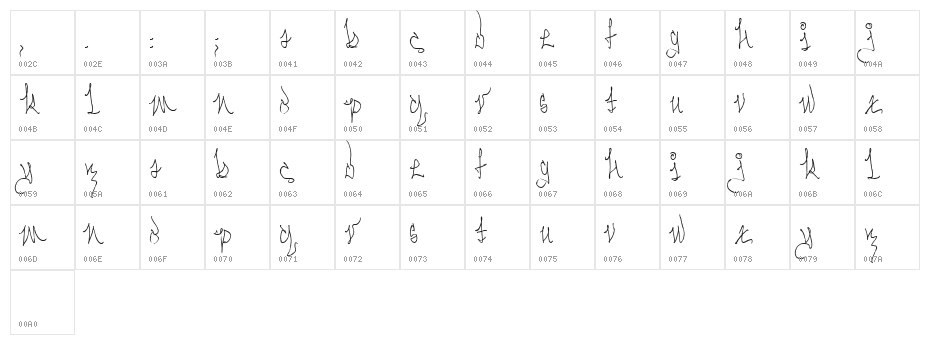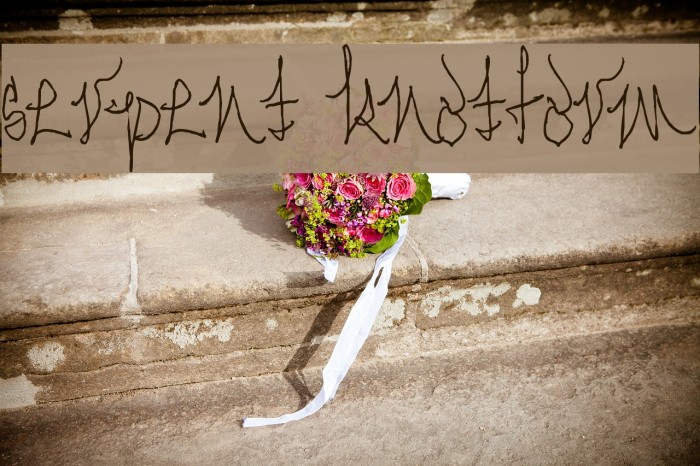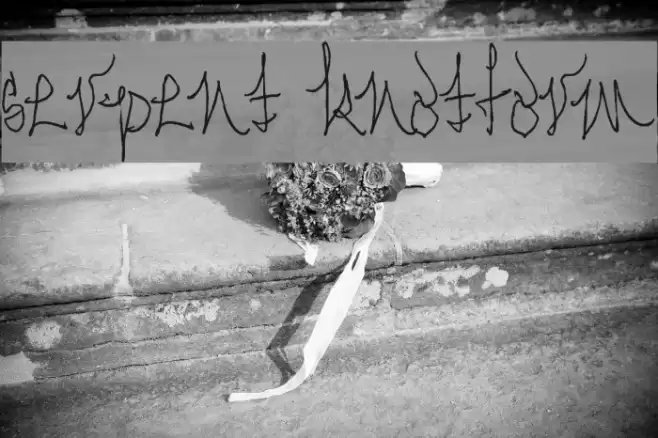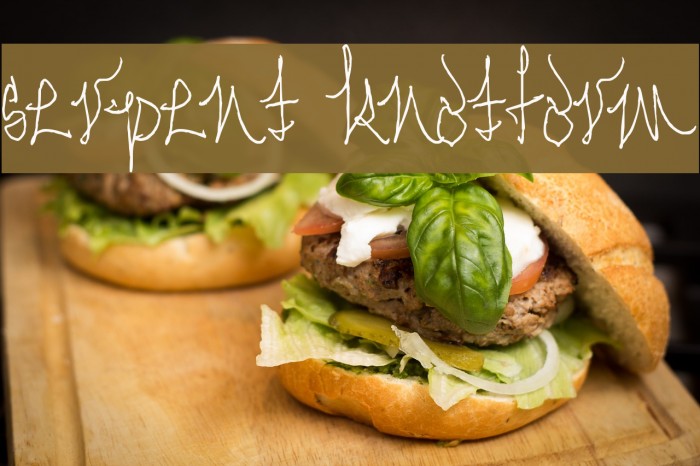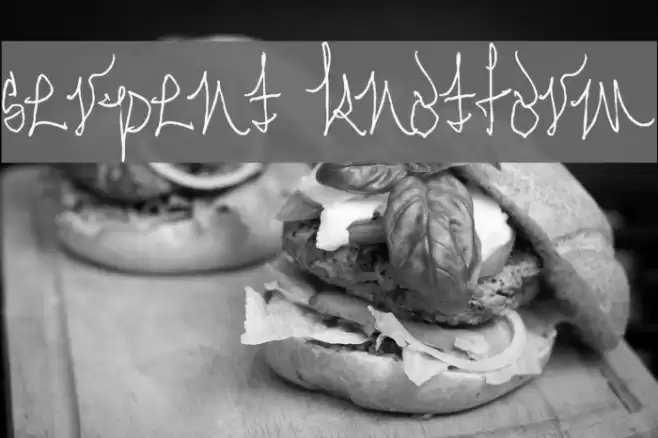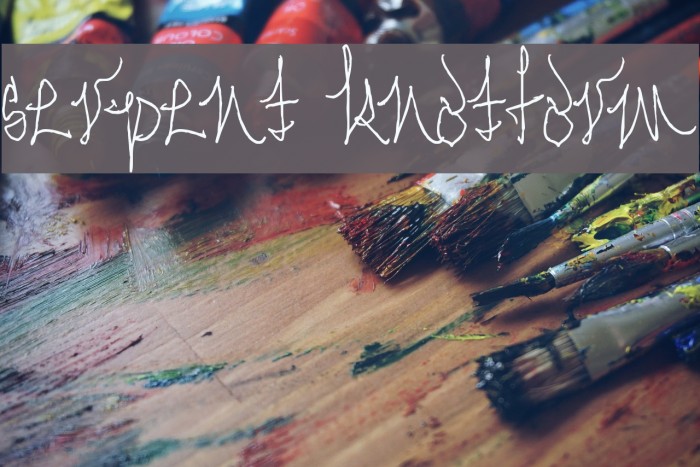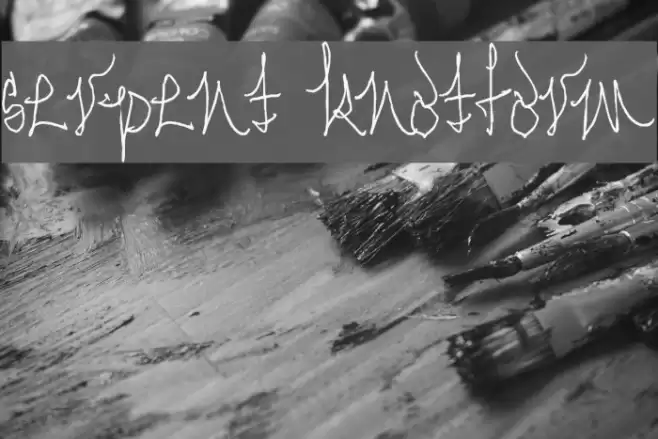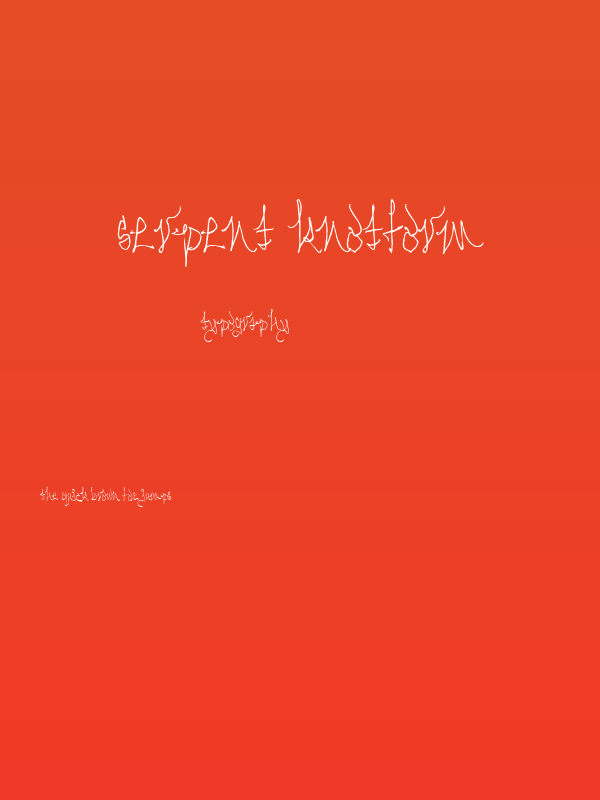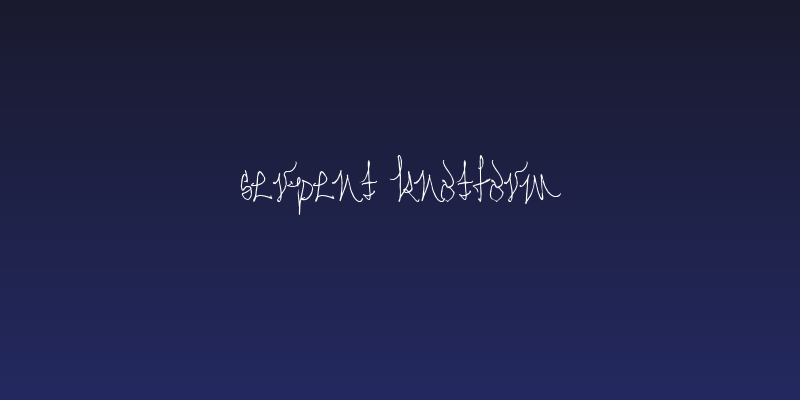
Serpent Knotform Font
Serpent Knotform Description
This font exhibits a highly decorative and intricate style, reminiscent of ancient scripts with a modern twist. The characters are interconnected with flowing, serpentine lines that create a sense of movement and fluidity. Each letter is uniquely crafted with loops and curves, giving it an artistic and almost mystical appearance. The font maintains a consistent line weight throughout, which adds to its cohesive look. The overall design is both elegant and complex, making it suitable for projects that require a touch of sophistication and creativity.
| Proposed Projects | Ideal for use in fantasy-themed designs, book covers, invitations, and branding that seeks a mystical or artistic flair. |